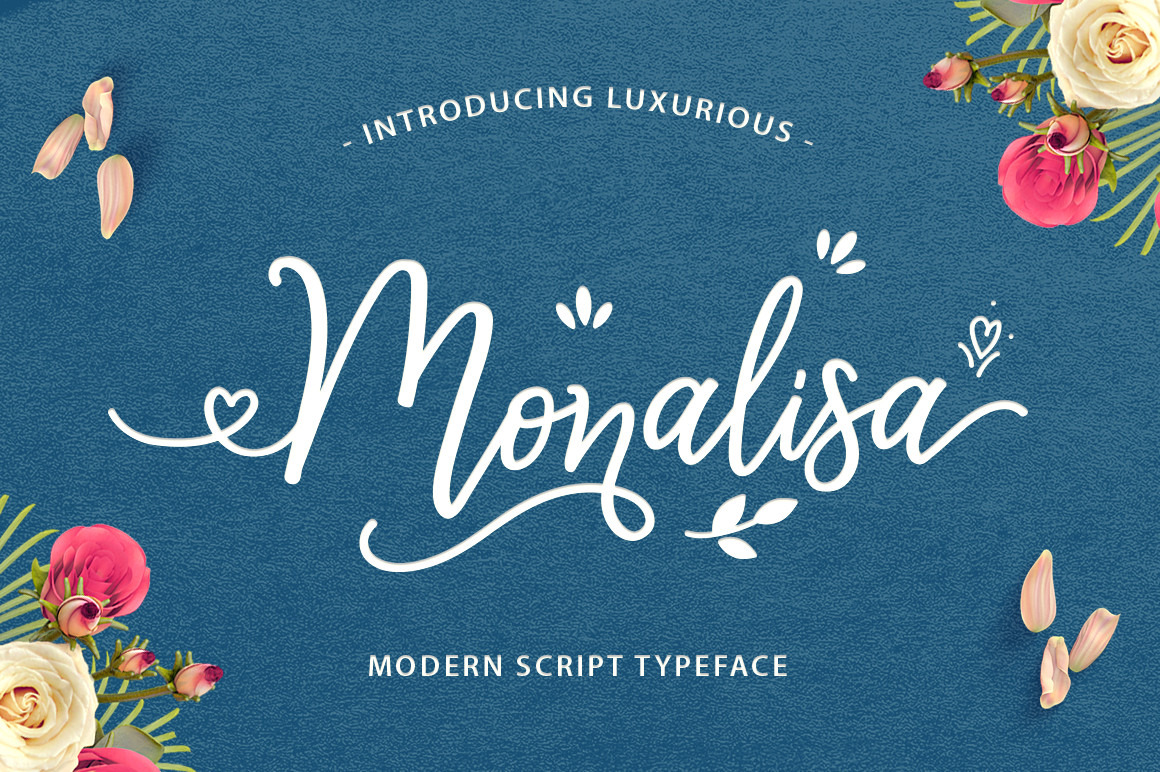
Monalisa Luxurious Font
Monalisa Script is modern script typeface. Monalisa a beautiful for wedding card design, logotype, website header, fashion design and any more. Monalisa comes as a Monoline font, and also come with 413 Glyph and 37 Swash Characters. It contains a full set of lower & uppercase letters, a large range of punctuation, numerals, and multilingual support.
- Multilingual support : (Danish,Finnish,English,,Spanish,Dutch,German,Icelandic,Italian,Norwegian,Portuguese,Indonesian, Swedish)